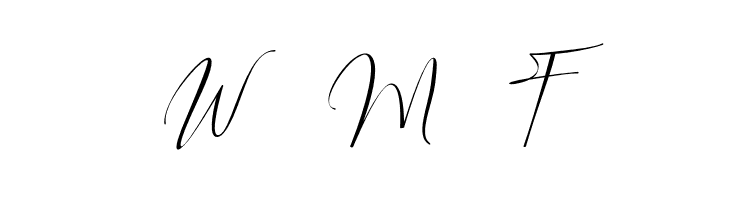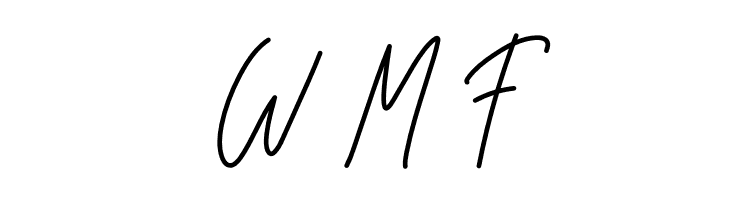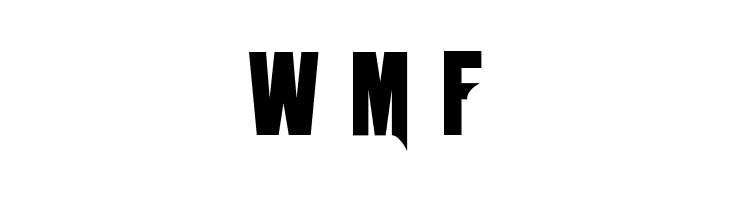
REAl BrEakerz Font
Font by or from www.graffitifonts.net
A graffiti-inspired font with sharp, angular lines and an edgy, rebellious style.
Realpolitik Condensed Font
Font by Daniel Zadorozny - www.iconian.com
A bold, geometric, and condensed font with a modern industrial style.
Mf Really Awesome Font
Font by Misti's Fonts
A playful, hand-drawn font with rounded, friendly characters.
Real Ohio Font
Designed by Khurasan and has been downloaded 39,619 times.
A bold, flowing script font with elegant curves and modern style.
RealToyz-Regular Font
Font by Alex Tomlinson - Skyhaven Fonts - shfonts.com
A playful, handwritten font with dynamic strokes and a casual style.
BAND OF REALITY Font
Designed by Maelle Keita and has been downloaded 14,005 times.
A bold, high-contrast serif font with sharp serifs and a modern twist.
Is life really that complicated Font
A playful, casual handwritten font with organic, irregular letterforms.
Realpolitik Bold Font
Gracetypestudio
A bold, geometric font with a modern, industrial aesthetic.
RealTrap Font
Bold, distressed font with an outlined, three-dimensional effect.
Real Young Font
The Real Woman Font
A bold, rounded font with smooth curves and a modern, friendly appearance.
Mialgia Font
A bold, outlined font with a playful and modern style.
Ibarra Real Nova SemiBold Italic Font
A semi-bold italic serif font with classic elegance and refined style.
The Real Magazine Demo Font
Typia Nesia - www.myfonts.com/foundry/Typia_Nesia/
A bold, brush-style script font with energetic, hand-painted strokes.
Really Font
Font by scratchones
Playful and energetic handwritten font.
Realpolitik Shadow Italic Font
Font by Daniel Zadorozny - www.iconian.com
Bold, italicized font with a shadow effect and geometric style.
Realpolitik Bold Italic Font
InermediaSTUDIO
A bold, italicized font with a geometric and dynamic style.
Realpolitik Italic Font
Font by Daniel Zadorozny - www.iconian.com
A bold, italicized font with angular, geometric shapes and a futuristic style.
MizuFontAlphabet Font